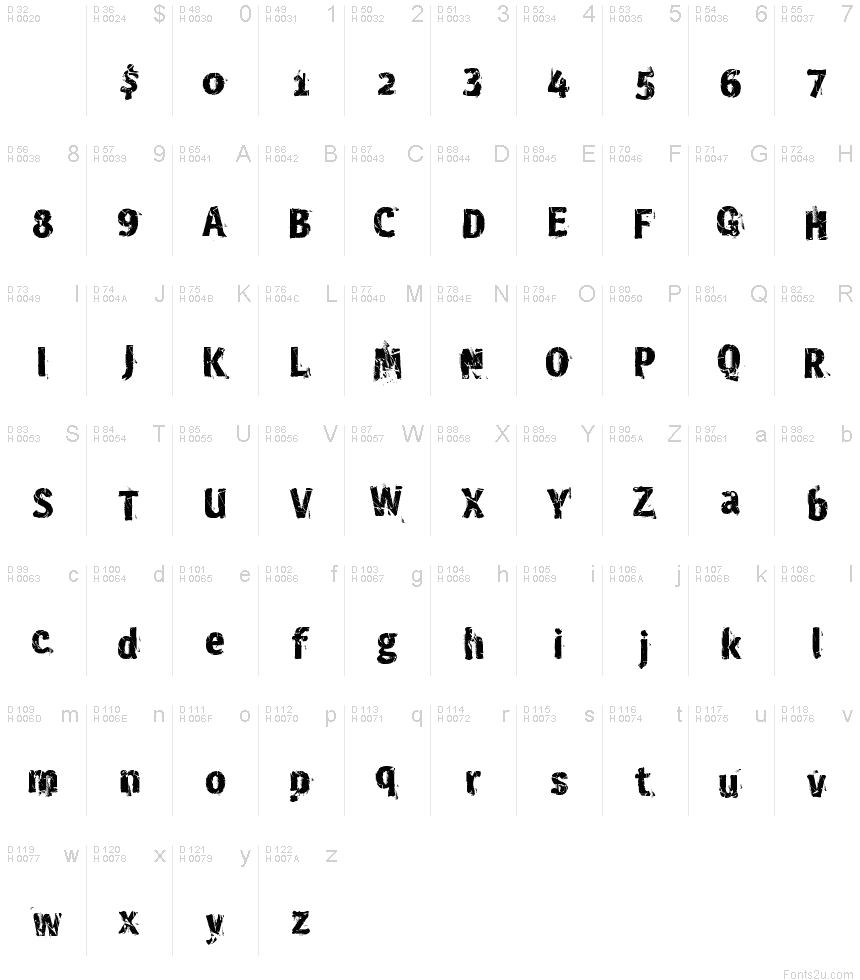
Crash Site from Xerographer Fonts is a free distorted display font built around broad, forceful letters and a battered industrial finish. Letter widths shift slightly, and deep scratches, broken edges, torn-looking gaps, and scattered flecks cut unevenly through the strokes without reducing them to random debris.
Its wrecked surface fits hard-rock concert posters as convincingly as tense survival-game graphics, where the layered damage can suggest amplified noise, violent impact, or a world under strain. On a magazine cover, it can turn a feature line into a central torn graphic element for stories on extreme music, underground culture, or destructive action cinema.